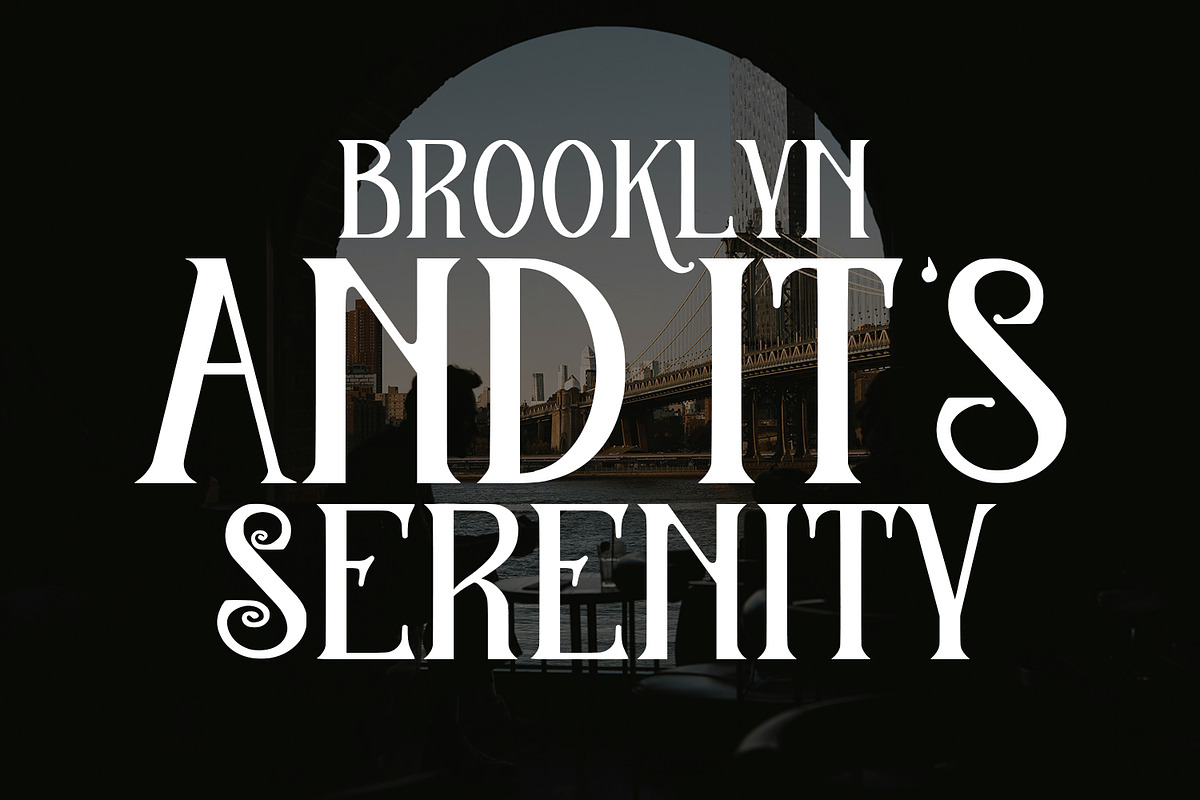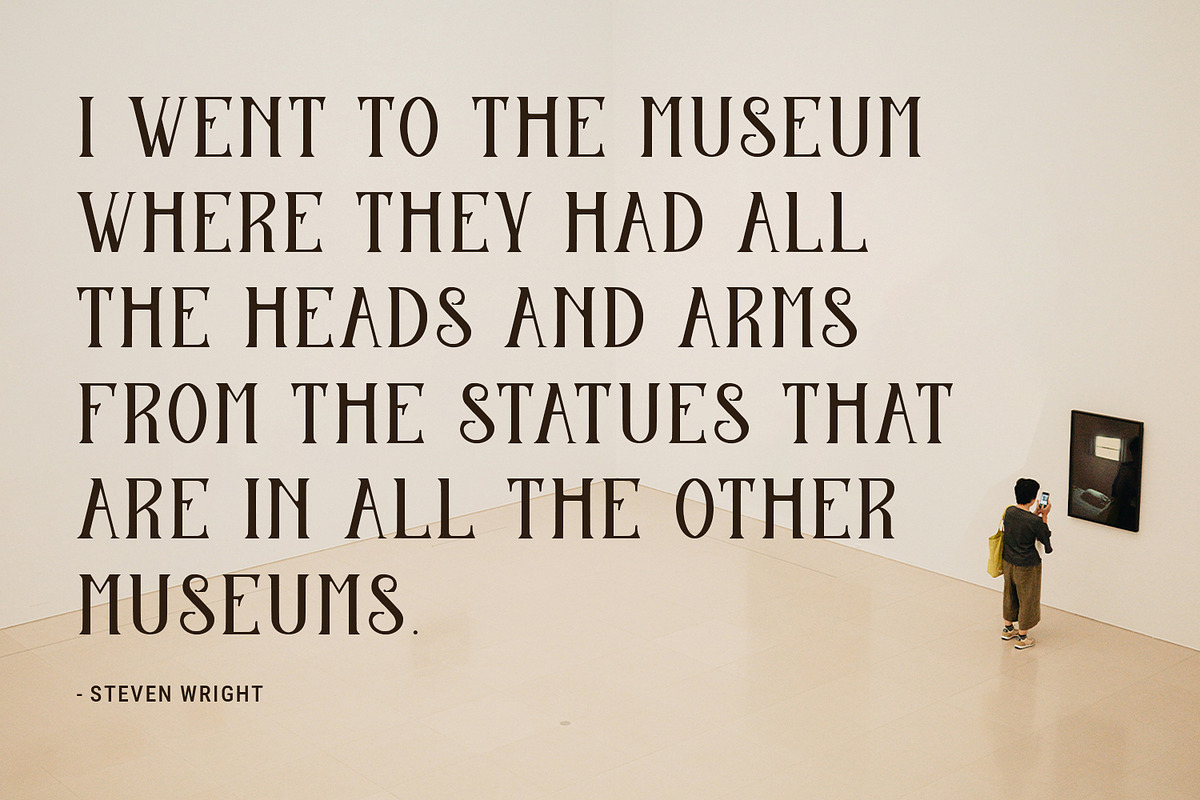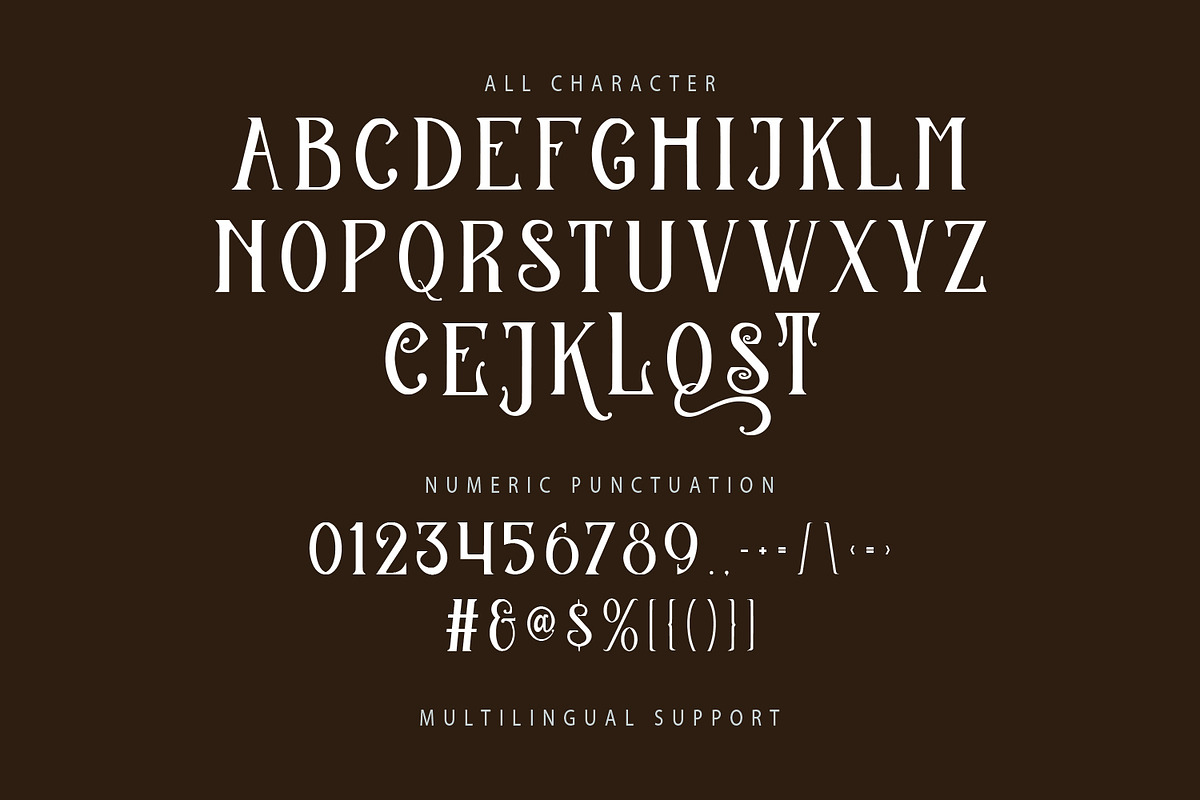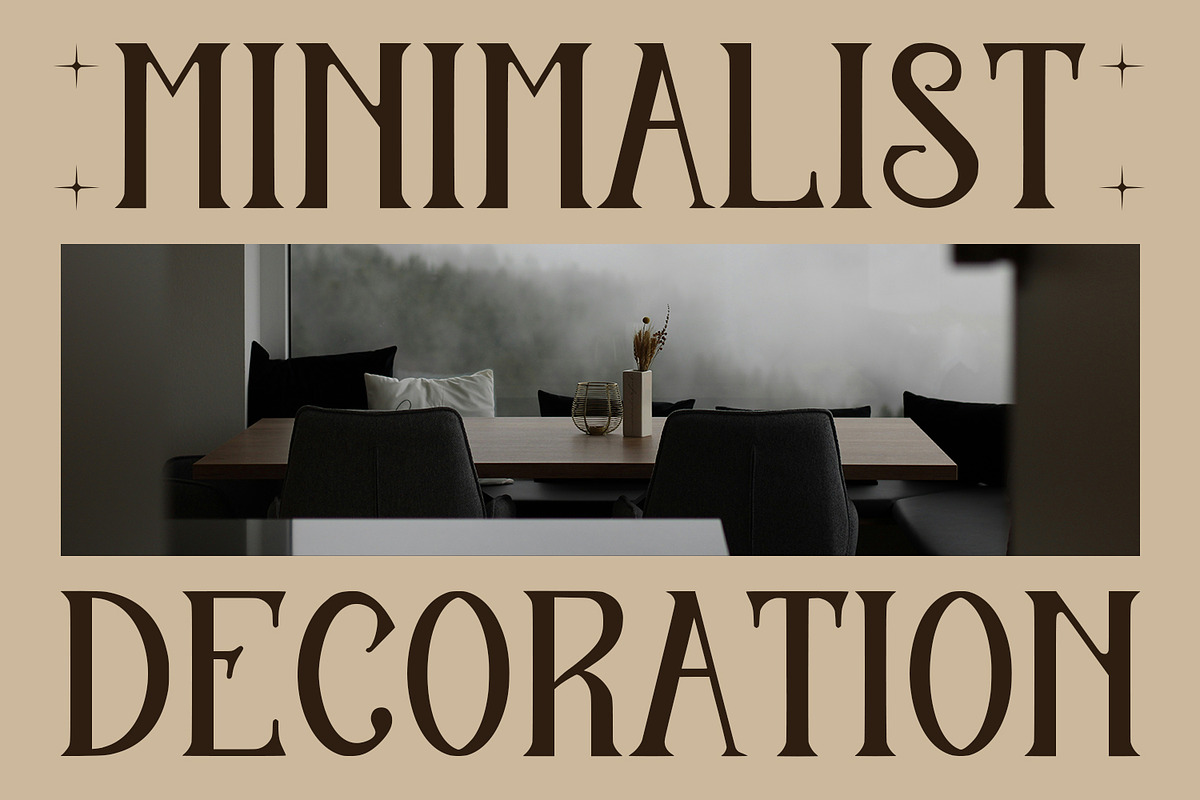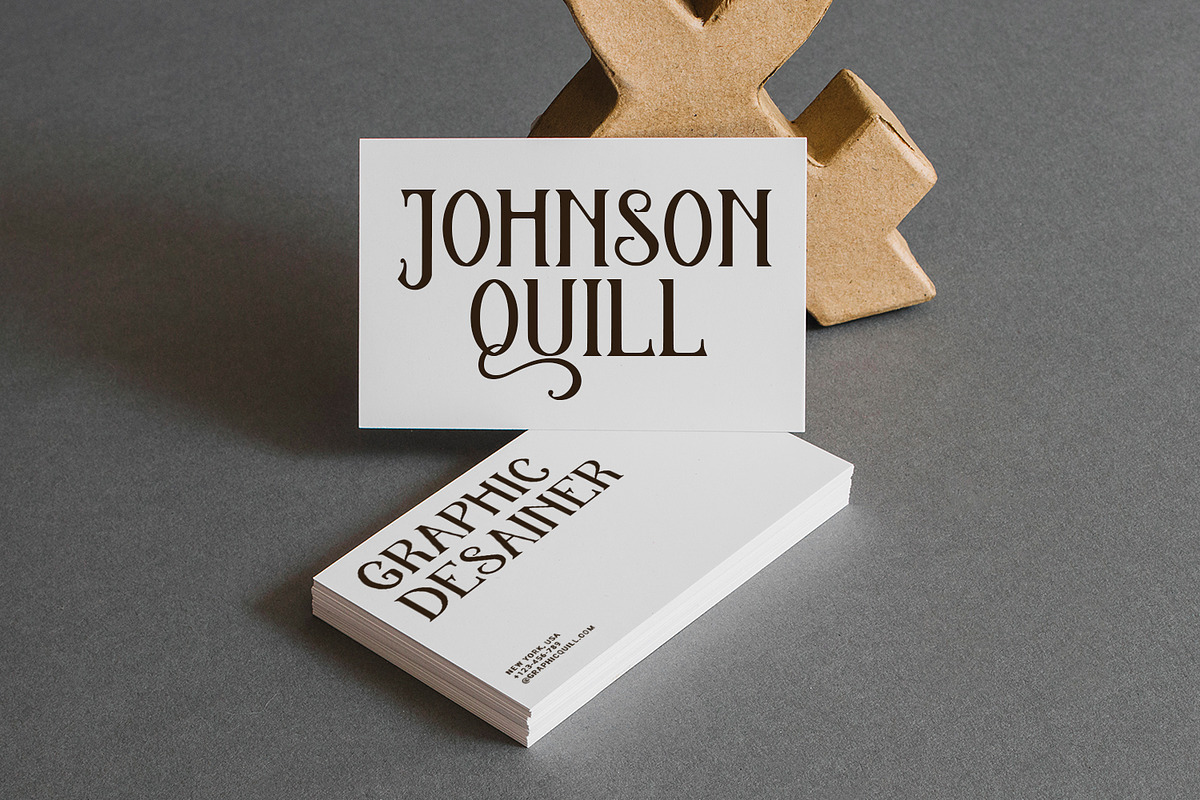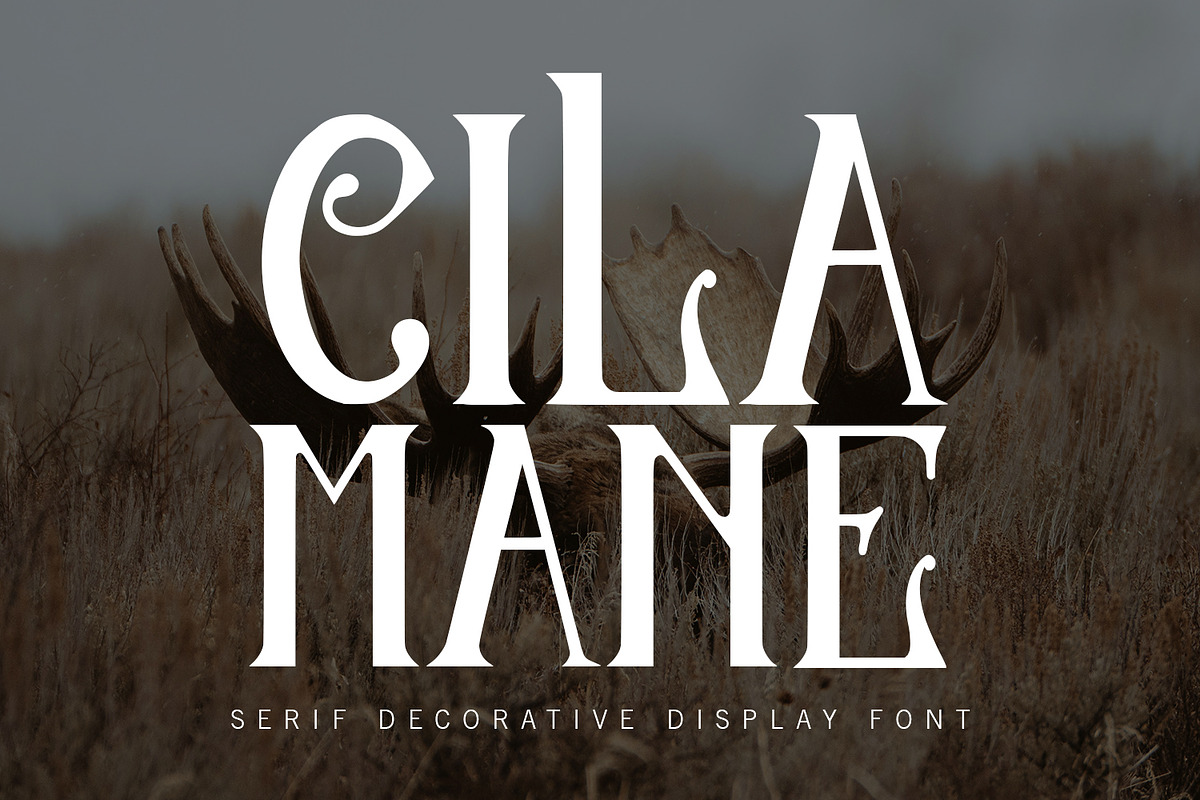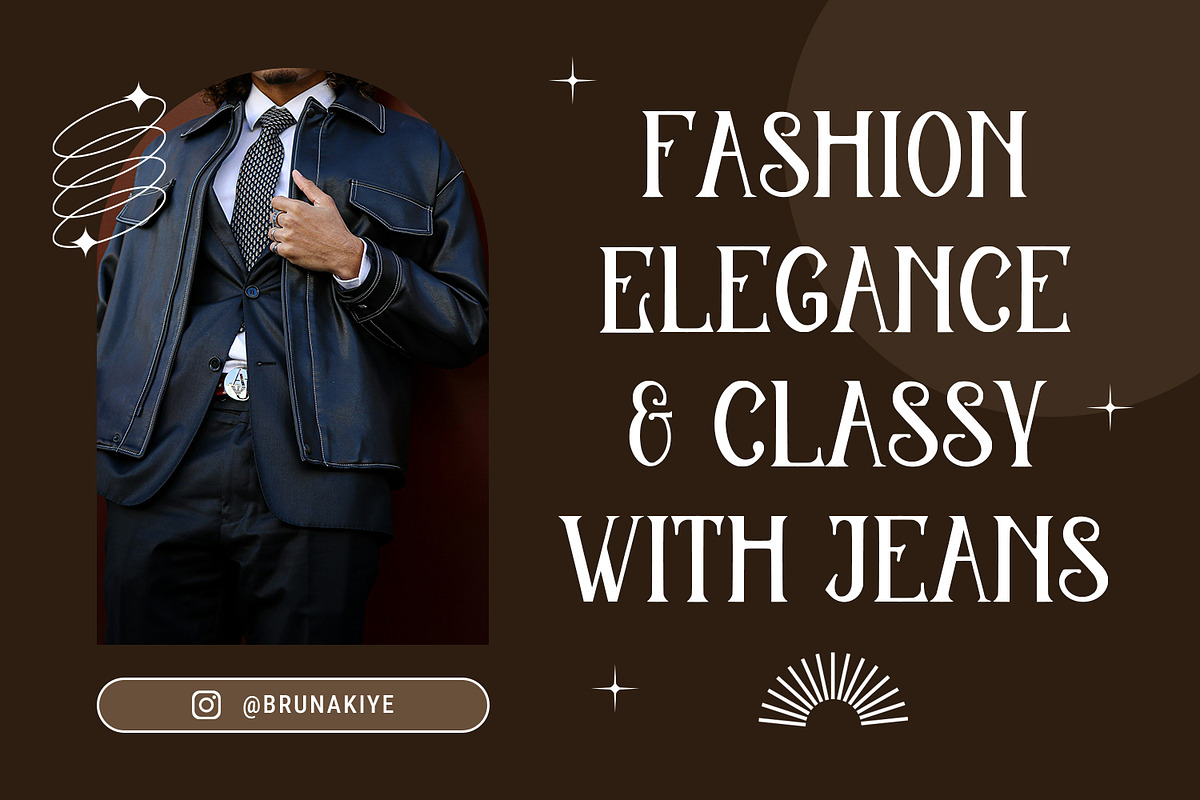
Cilamane Serif Decorative Display
Cilamane Serif Decorative Display Font.
Cilamane Luxury Decorative Serif Font is a handmade Modern Victorian handlettering, which is combining modern and classic typography with some awesome alternates. Yes we back to early 1800s, bring classic touch on this decade.